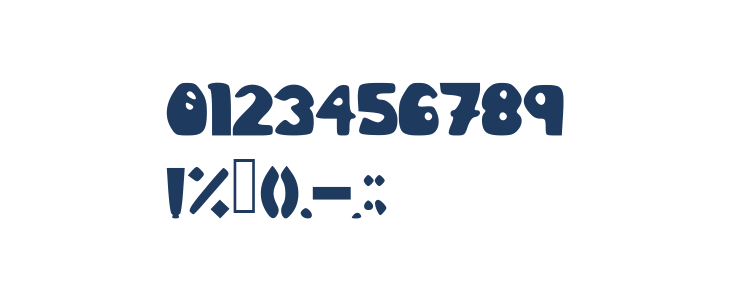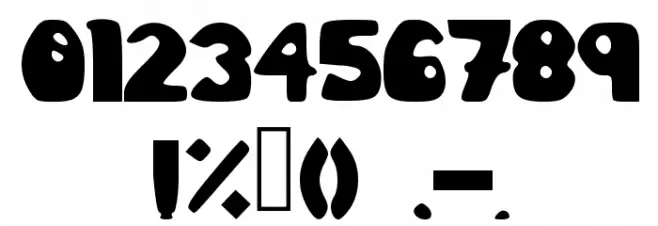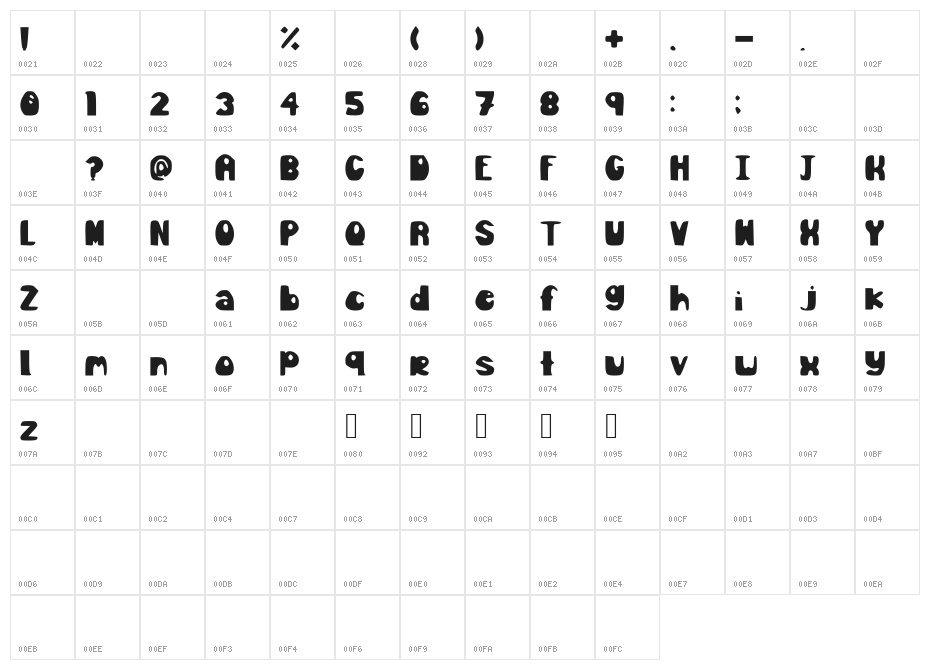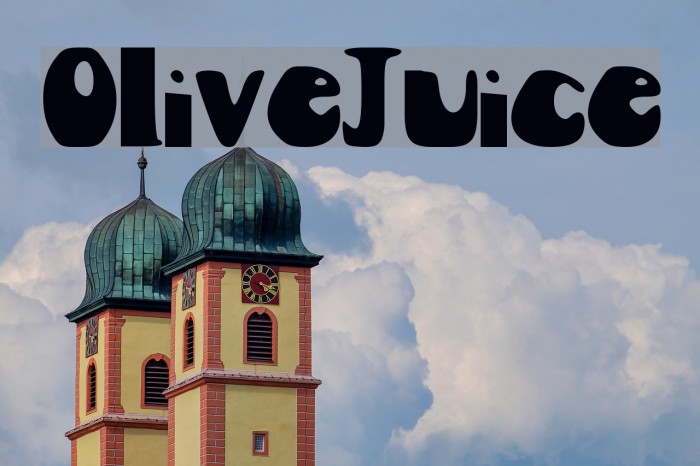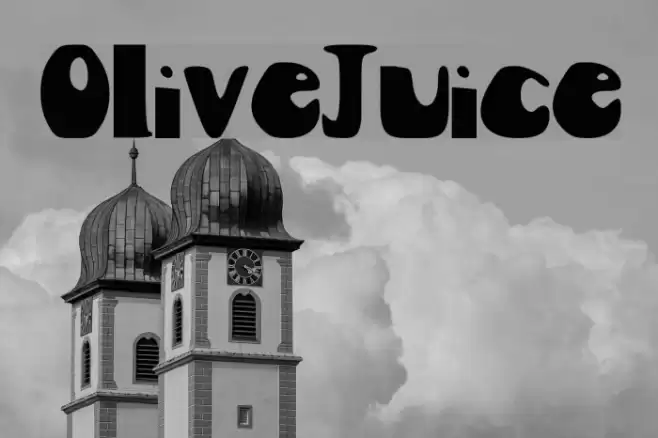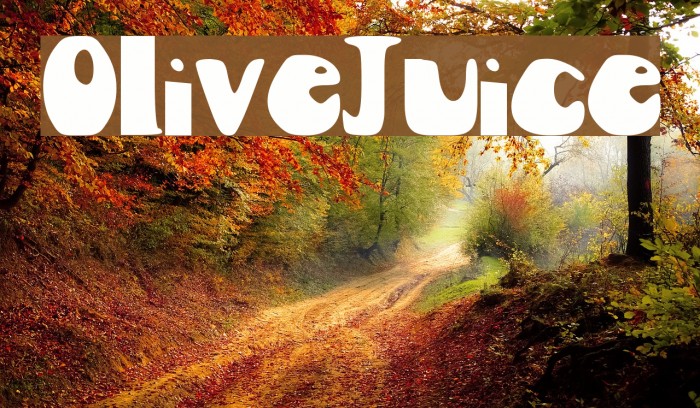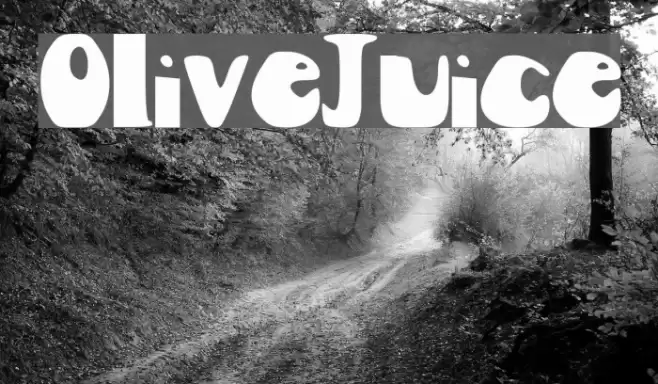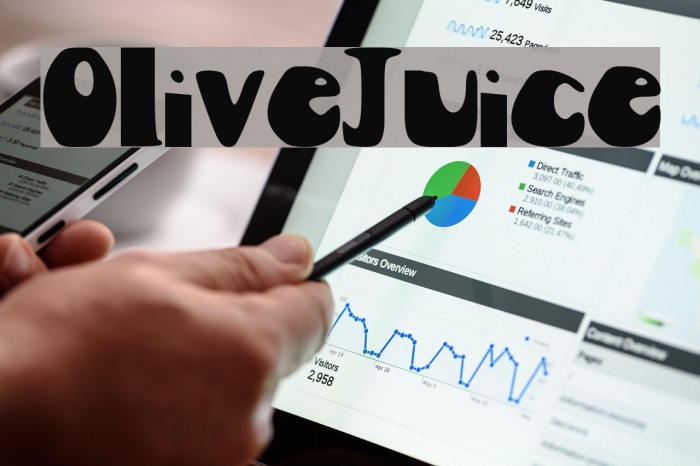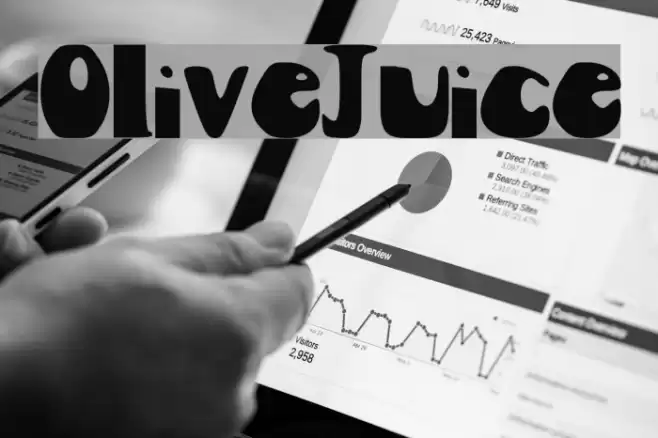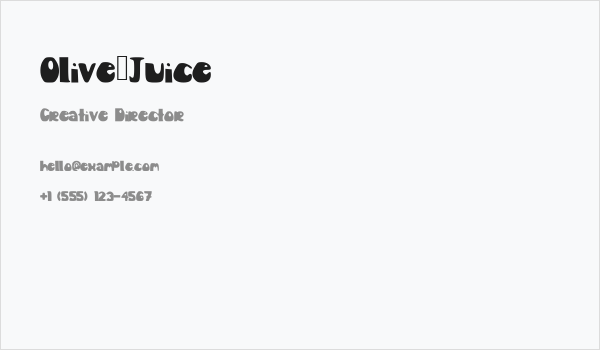
Olive_Juice Font
Olive_Juice Description
This font features a bold and playful design with a distinctly rounded and chunky appearance. The characters are heavily stylized, with exaggerated curves and a whimsical flair that gives it a unique personality. The uppercase and lowercase letters maintain a consistent boldness, while the numbers and special characters follow the same playful theme. The font's overall look is reminiscent of retro or vintage styles, making it ideal for projects that require a fun and eye-catching typeface.
| Proposed Projects | Perfect for children's books, playful branding, retro-themed posters, and eye-catching headlines. |